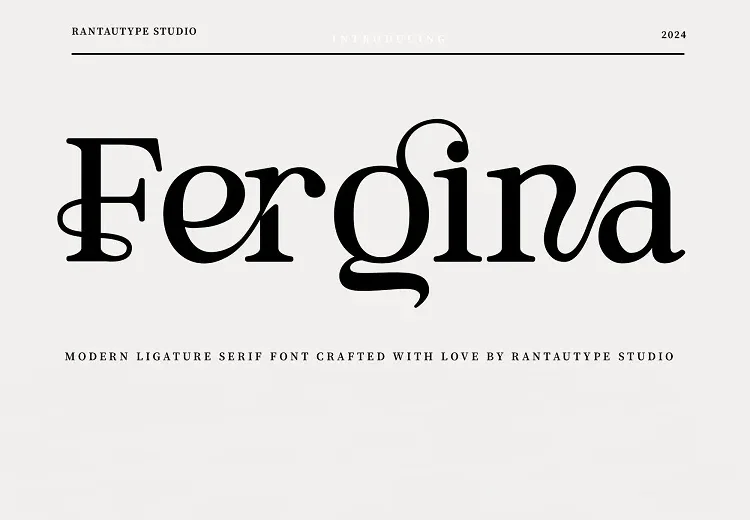
Fergina Font
Fergina is a beautifully crafted serif font that seamlessly blends sophistication, wit, and a touch of traditionalism. Its clean lines and well-balanced proportions make it an excellent choice for branding, editorial work, and luxury design, adding a layer of elegance and classic appeal to any project.
Key Features of Fergina:
Sophisticated and Elegant Design: Fergina combines refined serif details with a hint of traditional charm, making it perfect for designs that require both modern sophistication and a classic touch.
Versatile Application: Whether you’re working on branding, editorial layouts, or luxury projects, Fergina adapts effortlessly, enhancing the visual appeal and adding a timeless quality to your work.
Clean and Classic Aesthetic: The clear lines and balanced proportions of Fergina ensure that it not only looks elegant but also remains highly readable, making it ideal for both display and text applications.
Ideal Uses for Fergina:
Branding and Identity: Elevate your brand with the sophisticated and timeless look of Fergina, making your logos and branding materials stand out with elegance.
Editorial and Publishing: Use Fergina in magazines, books, and other editorial projects to add a touch of classic sophistication and ensure a polished final product.
Luxury Design: For projects that require a luxurious and refined appearance, Fergina provides the perfect balance of tradition and modernity.